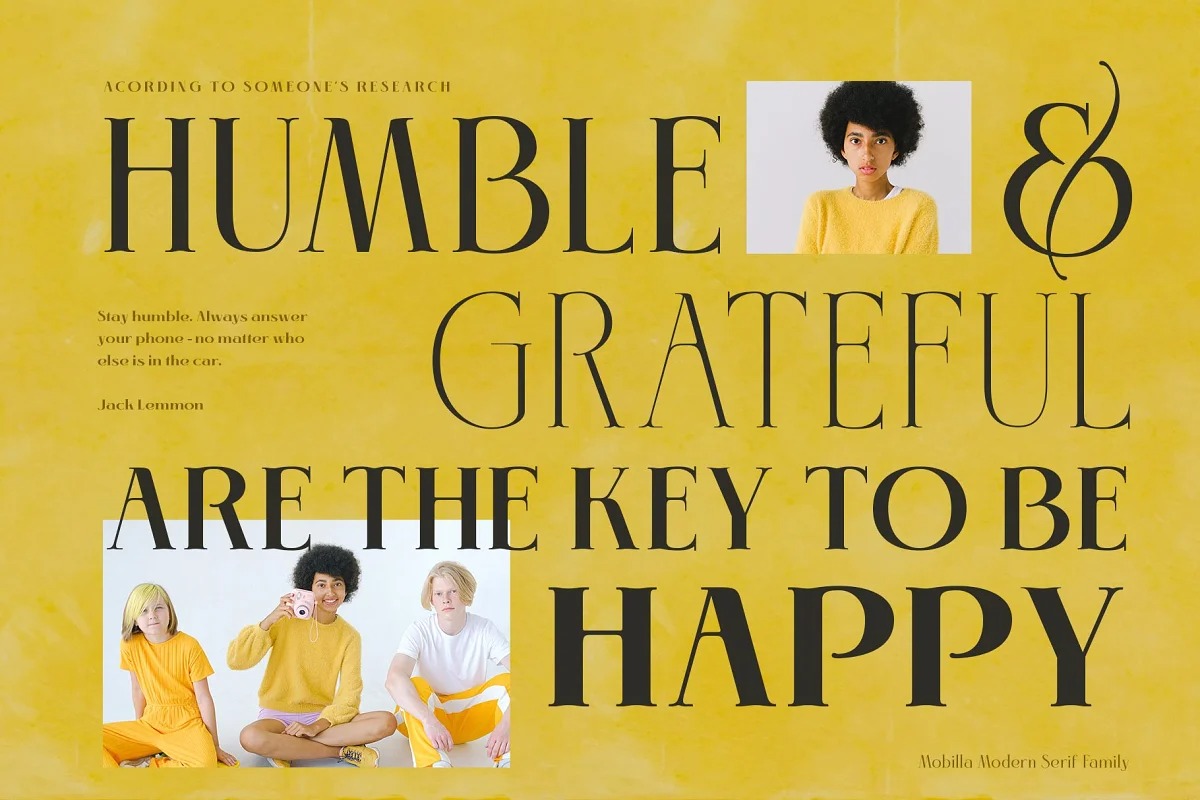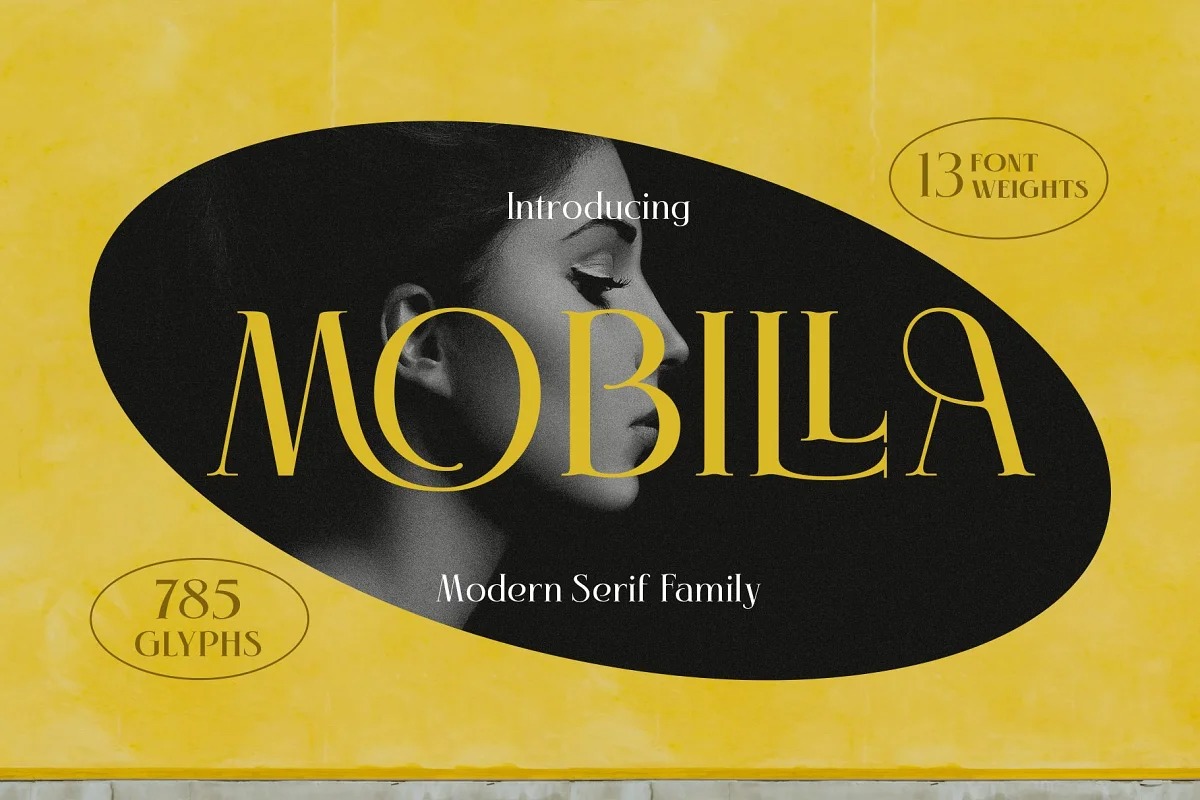
Mobilla Font
Mobilla Serif Font
This is a confident and friendly serif typeface that combines both boldness and elegance. The details of the shape of the “Mobilla Serif Elegant typeface” are very smooth and flow to create unique and beautiful curves. Elegant Serif typefaces such as “Mobilla Serif Elegant typeface” are very easy to apply to any design, especially those with an elegant and smooth concept, besides that this font is very easy to use both in design and non-design programs because everything changes and glyphs are supported by Unicode (PUA).
The Mobilla Serif Elegant typeface contains 785 glyphs with many unique and interesting alternative options. Plus, there’s a cool serif font family for header and description text from Thin to Heavy. In the poster preview all the letters are in the Mobilla Serif Elegant typeface.